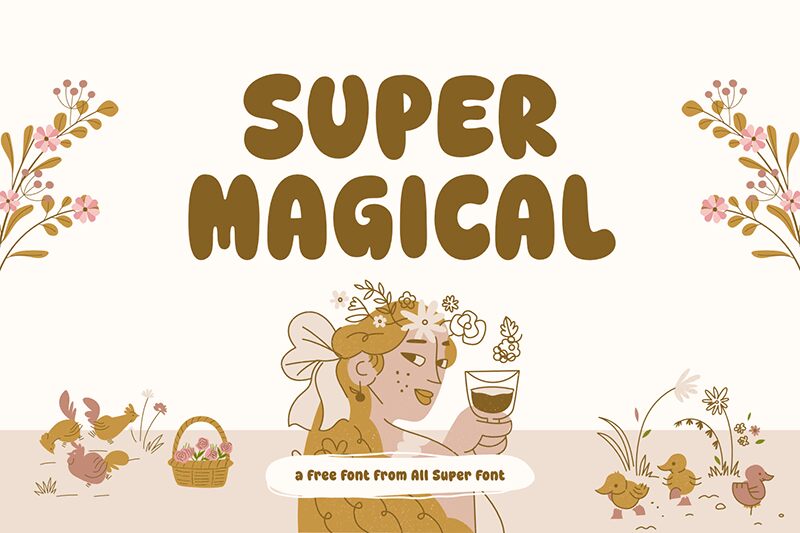
Super Magical font by fsuarez913 is a free display font inspired by cartoons. With its bold, rounded letters and soft appearance, it delivers a retro vibe that’s both whimsical and bubbly. Super Magical radiates positivity and liveliness all through its design structure which makes it suitable for different media.
Use this font in movie title designs, animated cartoon video clips, children-friendly game UI, social media content (Facebook posts or Tiktok videos), etc. It’ll also make an excellent choice for poster designs, comics/manga pages, large signage headlines, online streaming platforms (YouTube banner or intro), or any user interface elements that require attention.